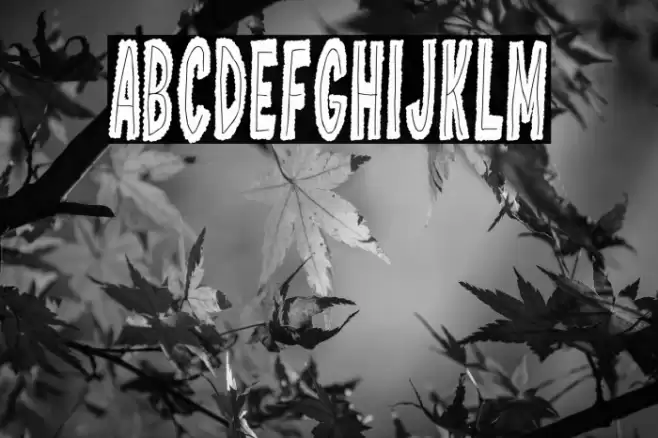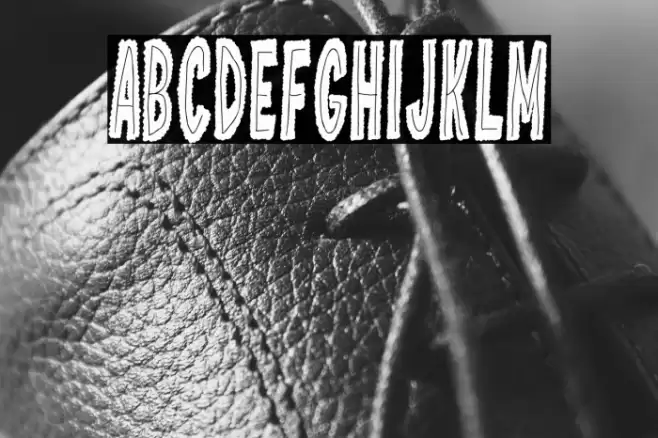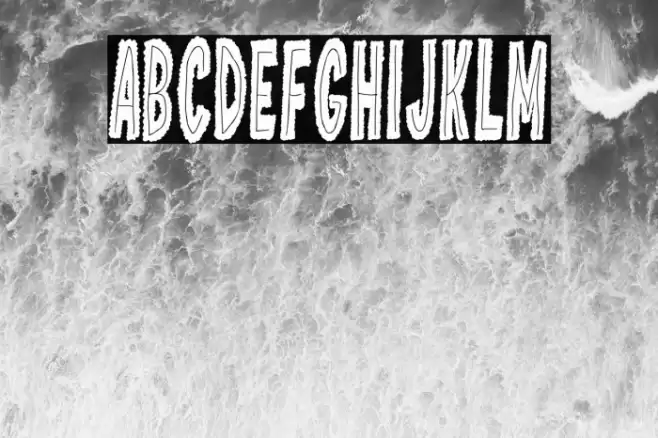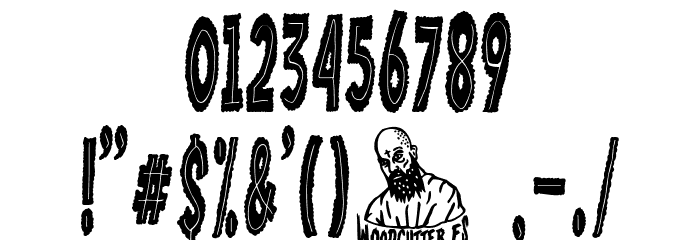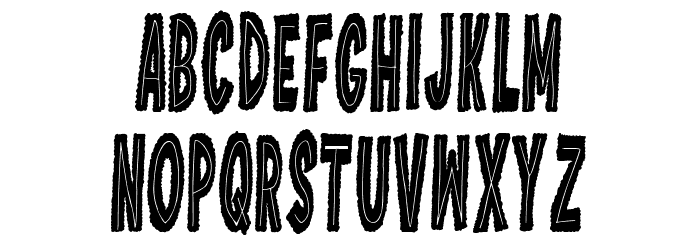
Valencia Tiki Toons Font
Valencia Tiki Toons Description
This font features a playful and bold design with a hand-drawn aesthetic. The characters are slightly irregular, adding a whimsical and informal touch. The strokes are thick and consistent, giving the font a strong presence. It includes both uppercase and lowercase letters, numbers, and a variety of special characters. The style is reminiscent of tiki or tropical themes, making it ideal for projects that require a fun and lively appearance.
A playful, hand-drawn font with a bold, tiki-inspired style from Uncategorized fonts.
- Font: Valencia Tiki Toons
- Proposed Projects: Perfect for posters, party invitations, children's books, and branding for tropical-themed events or products.